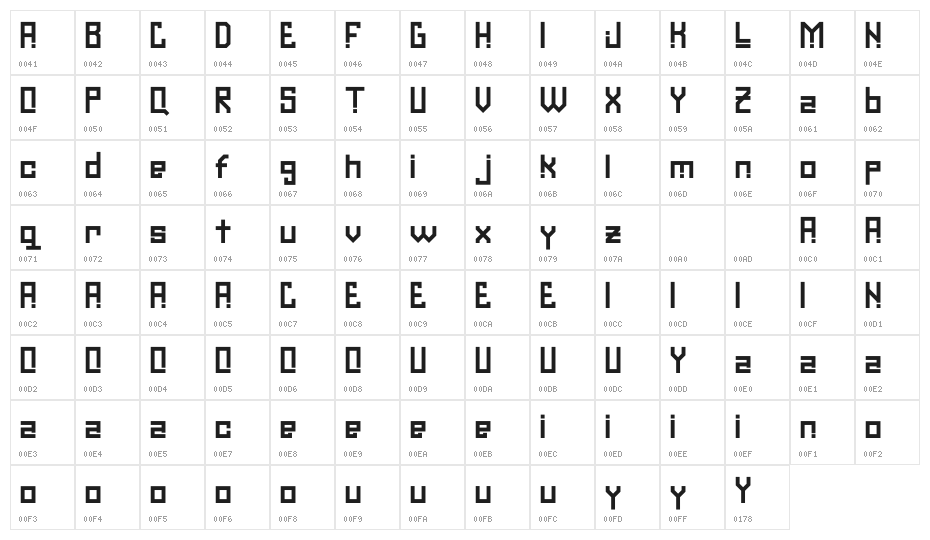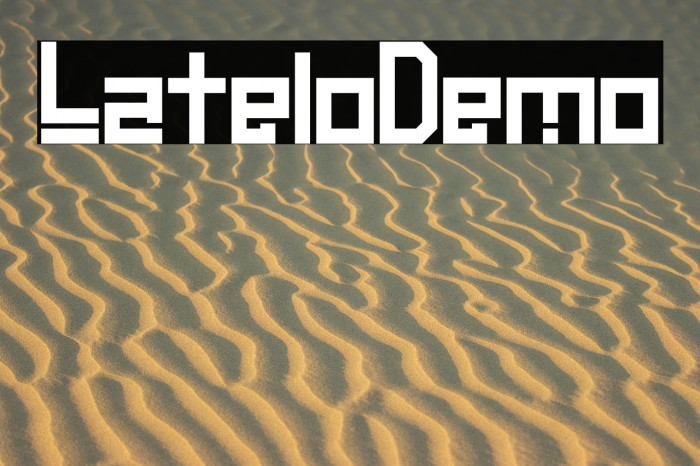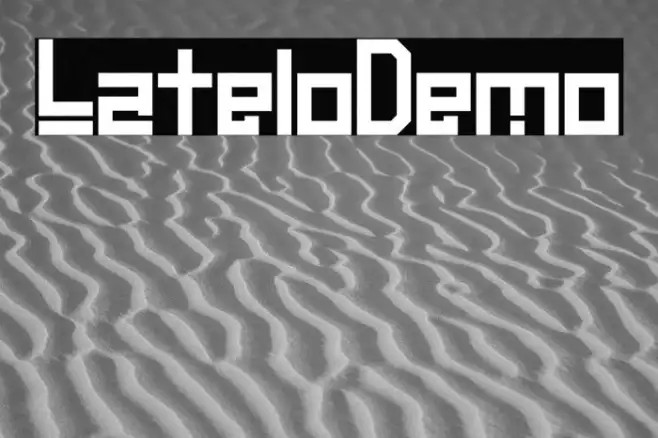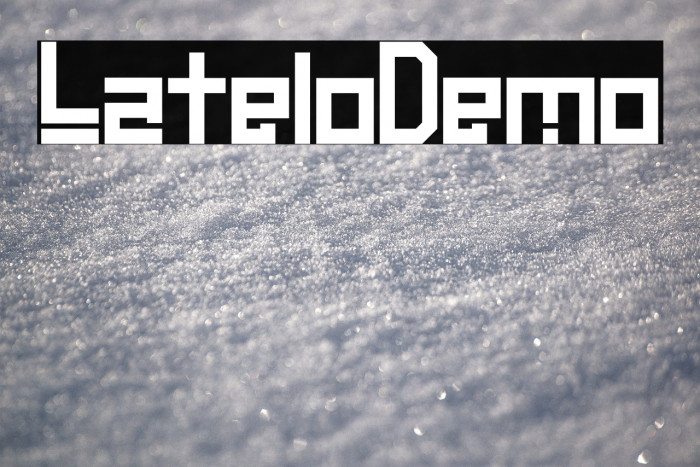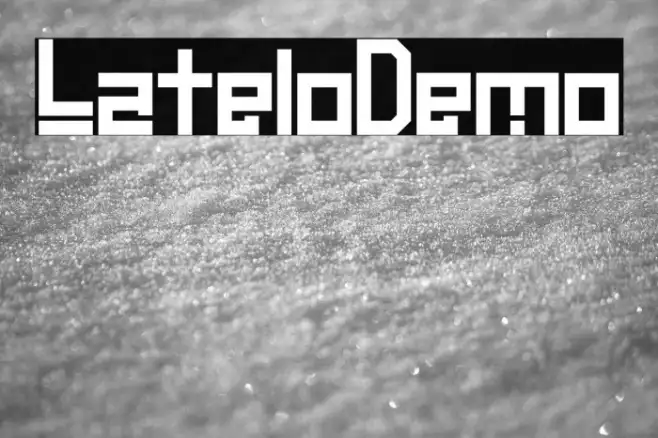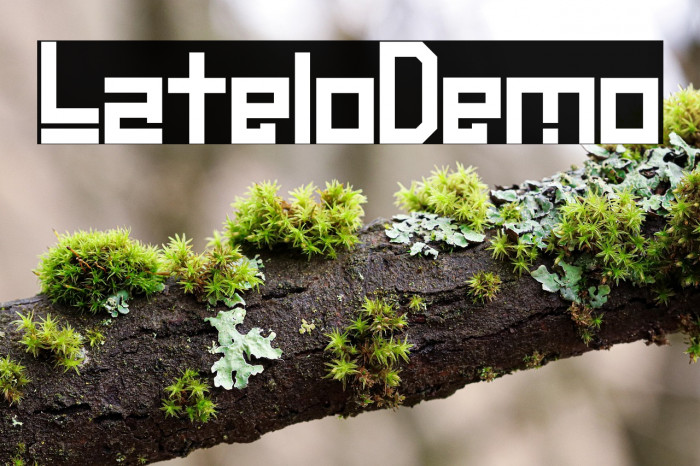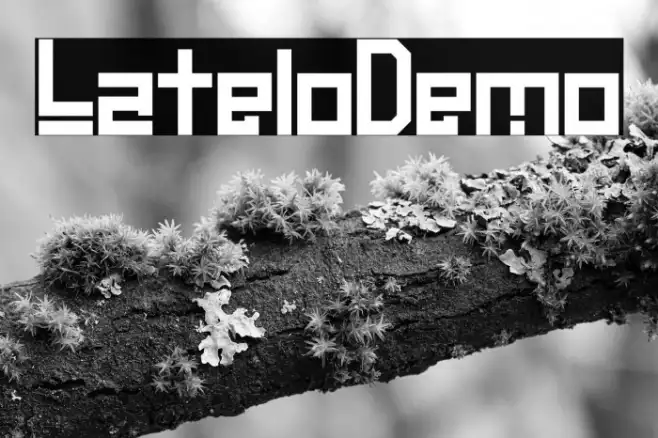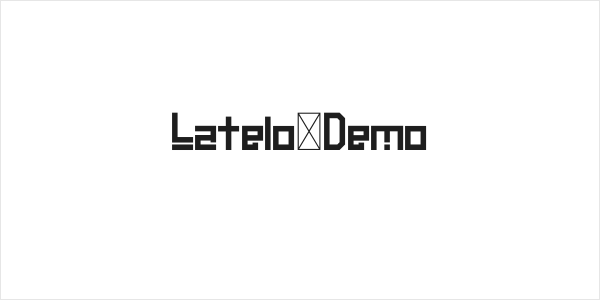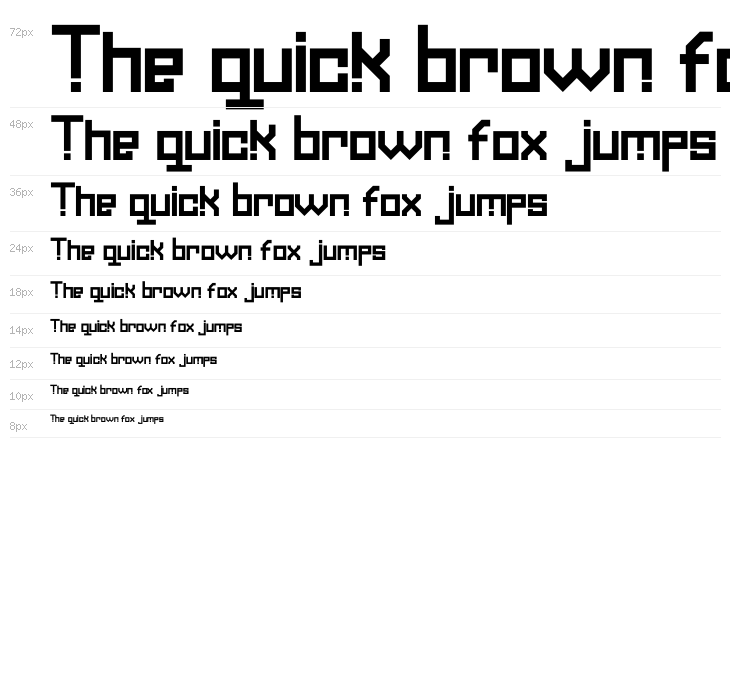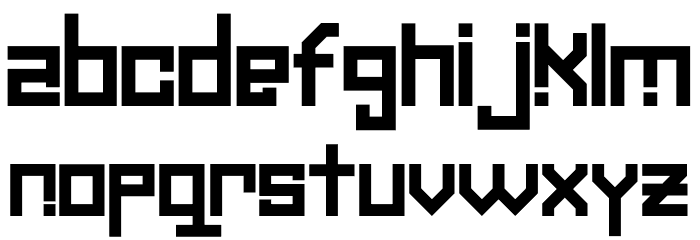
Latelo-Demo Font
Latelo-Demo Description
This font features a bold and geometric design with a distinctly modern and futuristic aesthetic. The characters are constructed with straight lines and sharp angles, creating a sense of precision and strength. The uppercase and lowercase letters maintain a consistent style, with unique elements such as the angular cuts and extended strokes that give the font a dynamic appearance. The absence of curves and the uniform thickness of the strokes contribute to its bold and impactful look. This font is highly legible and makes a strong visual statement, ideal for projects that require a contemporary and edgy feel.